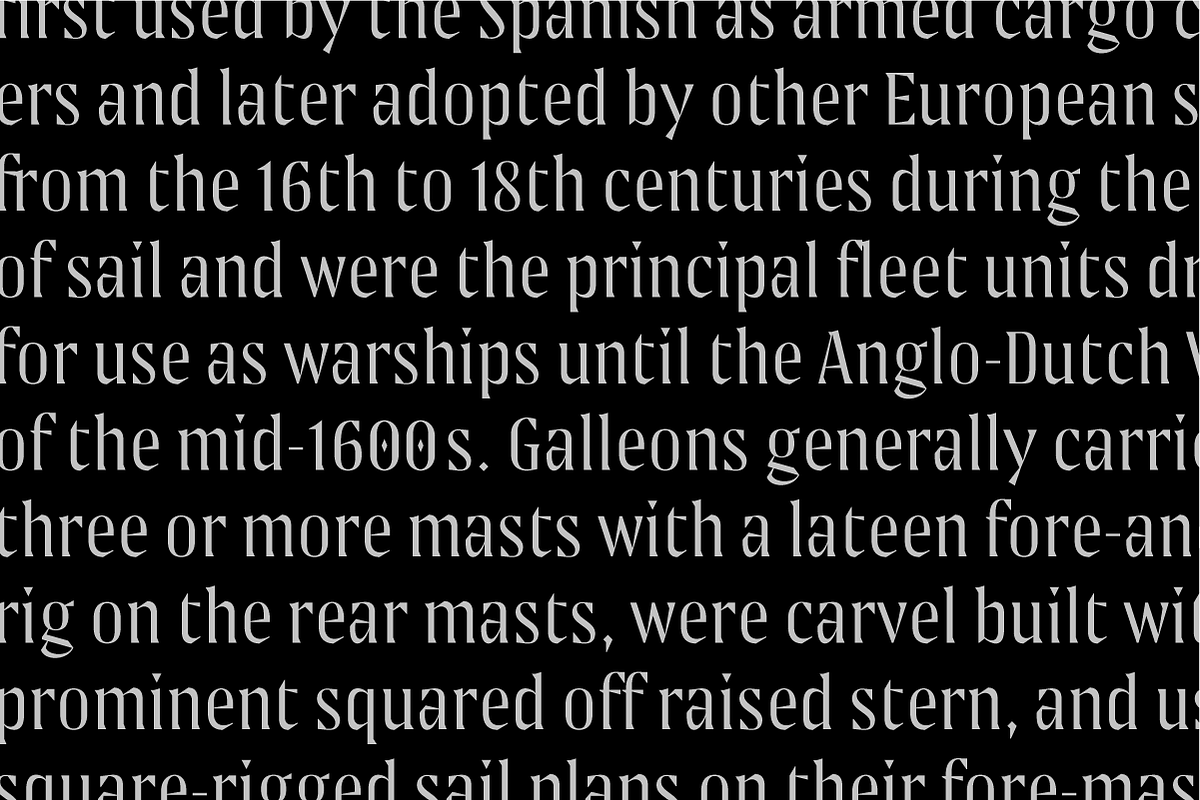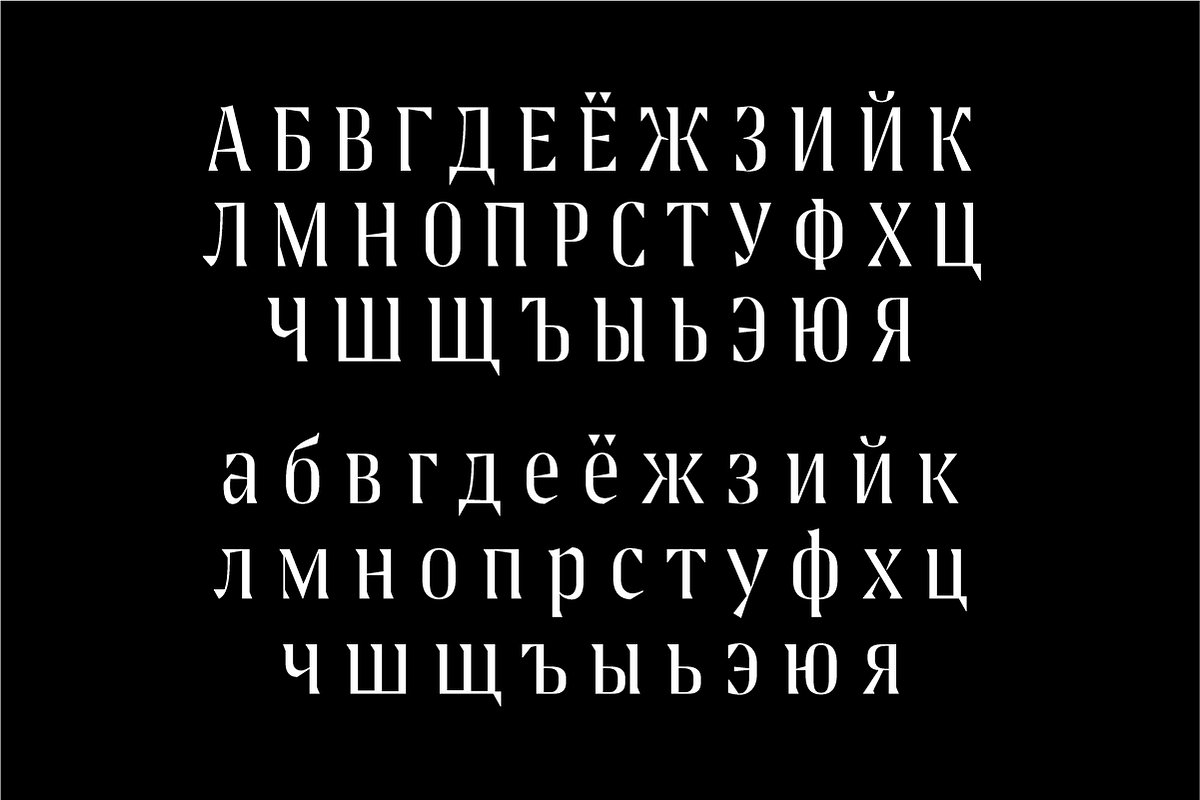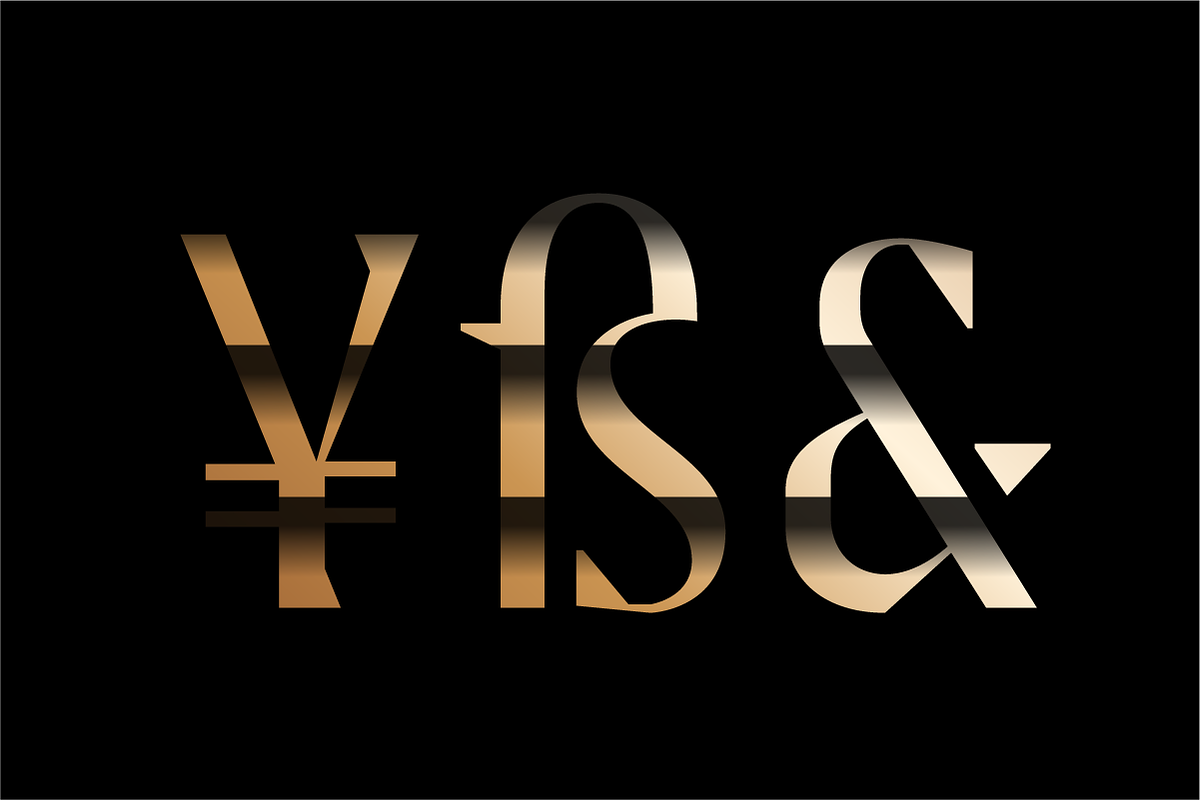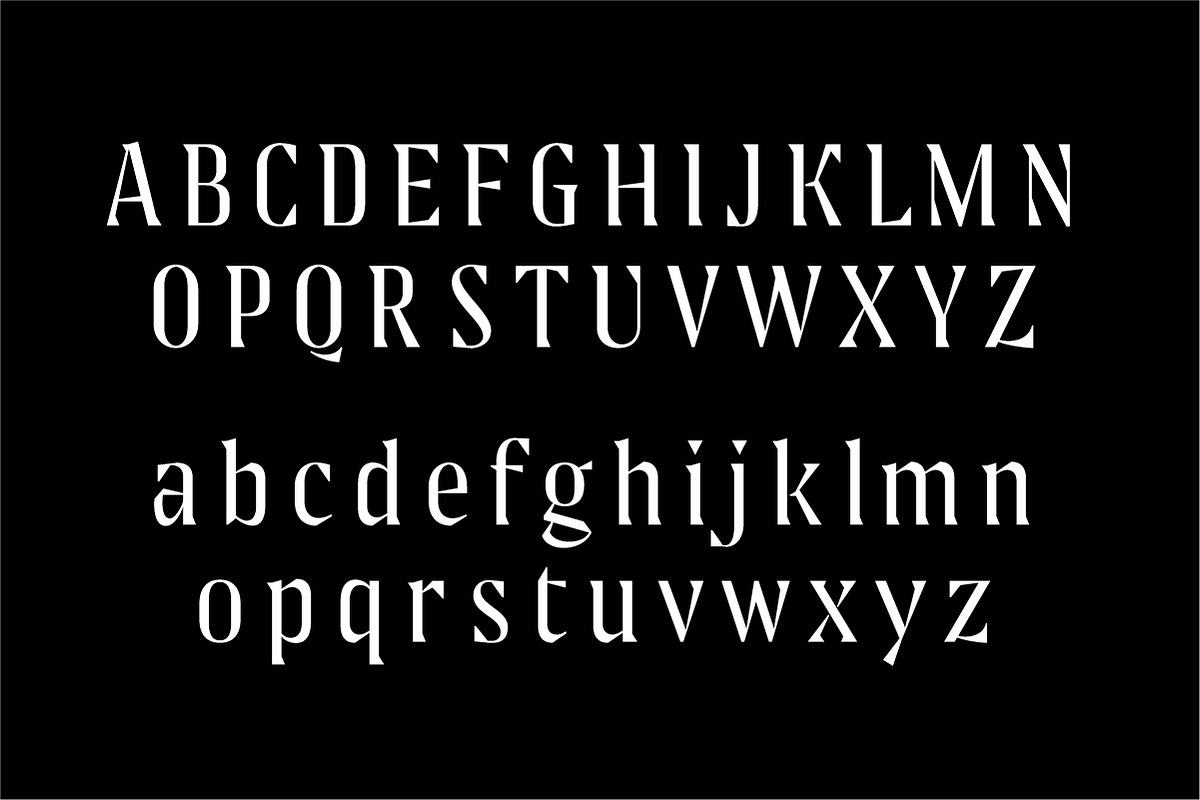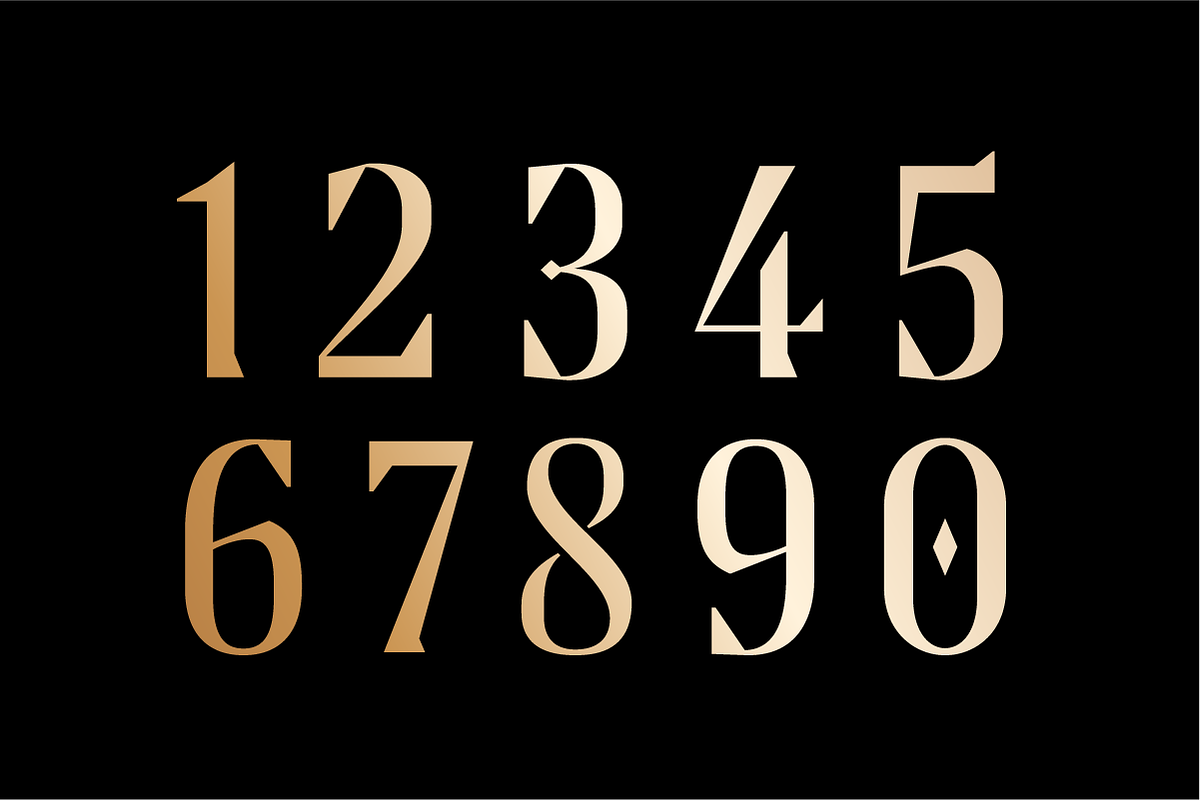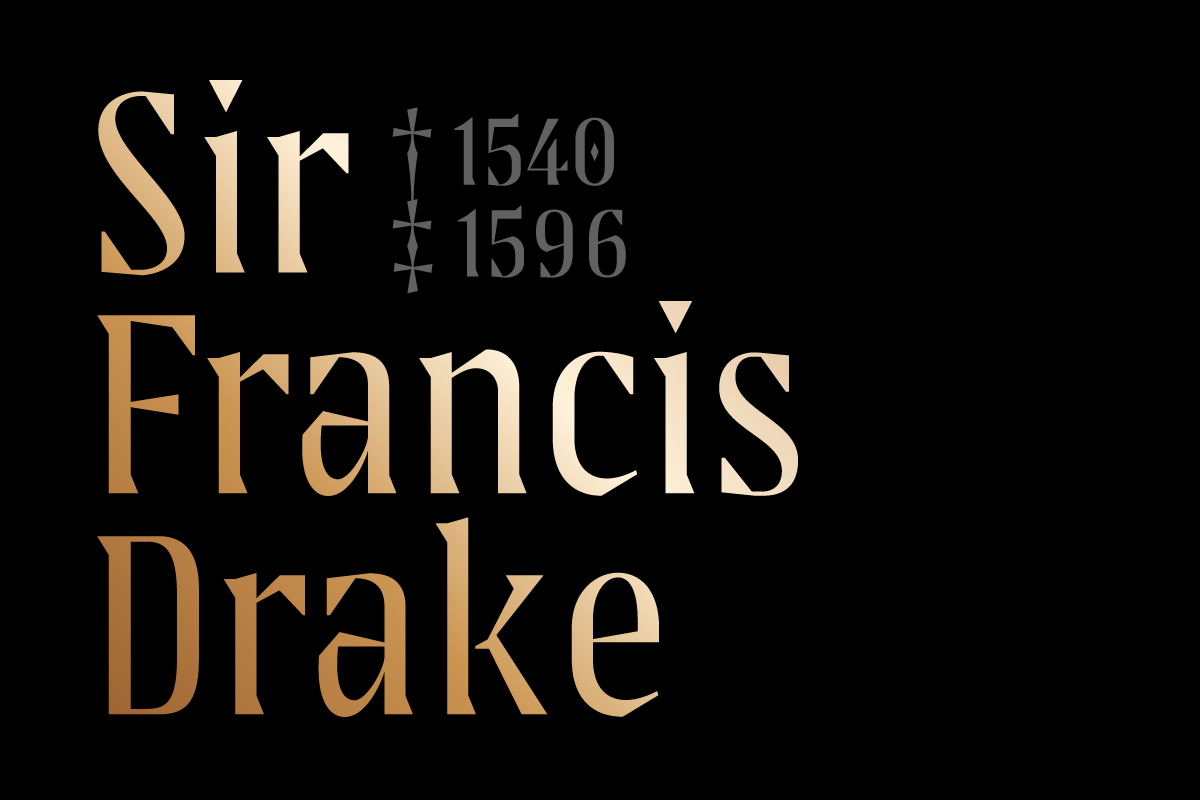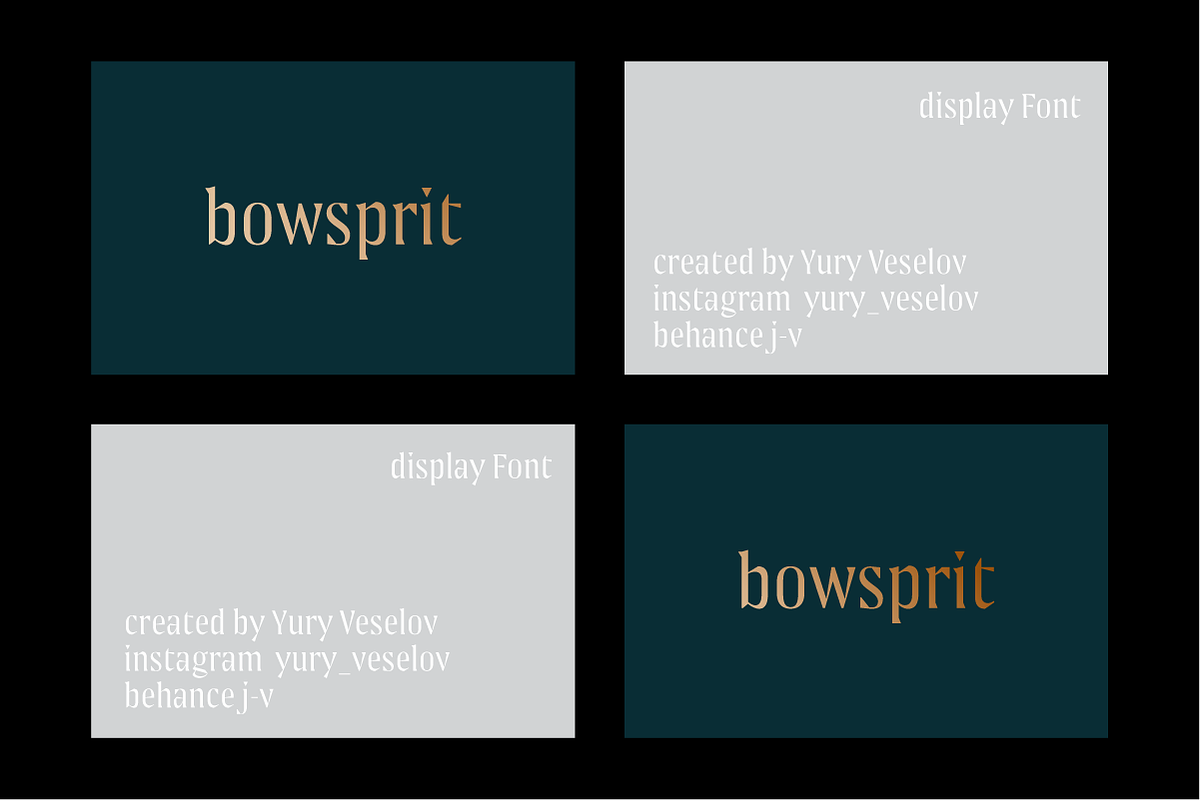
Bowsprit font
Bowsprit font by Yury Veselov is a font selected for branding, posters, packaging, typography.
Why Bowsprit font is worth a look
Bowsprit font by Yury Veselov fits naturally into Branding, posters, packaging, typography.